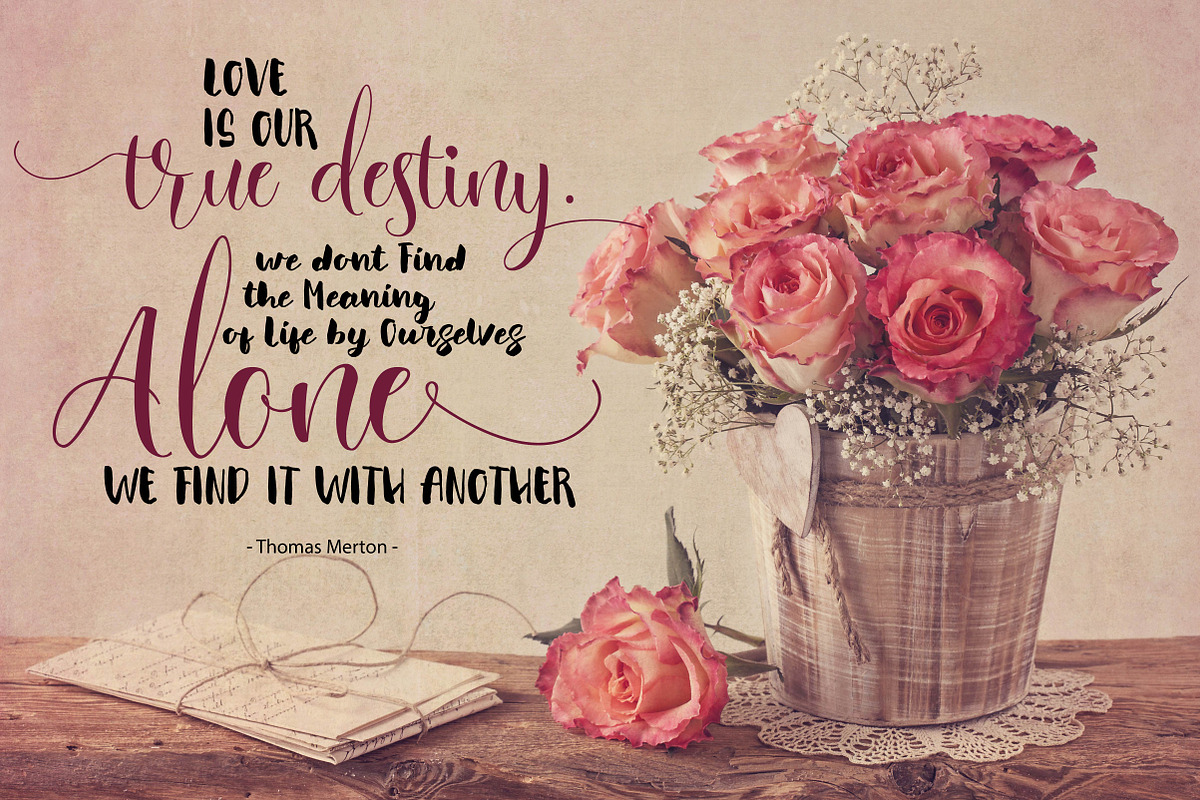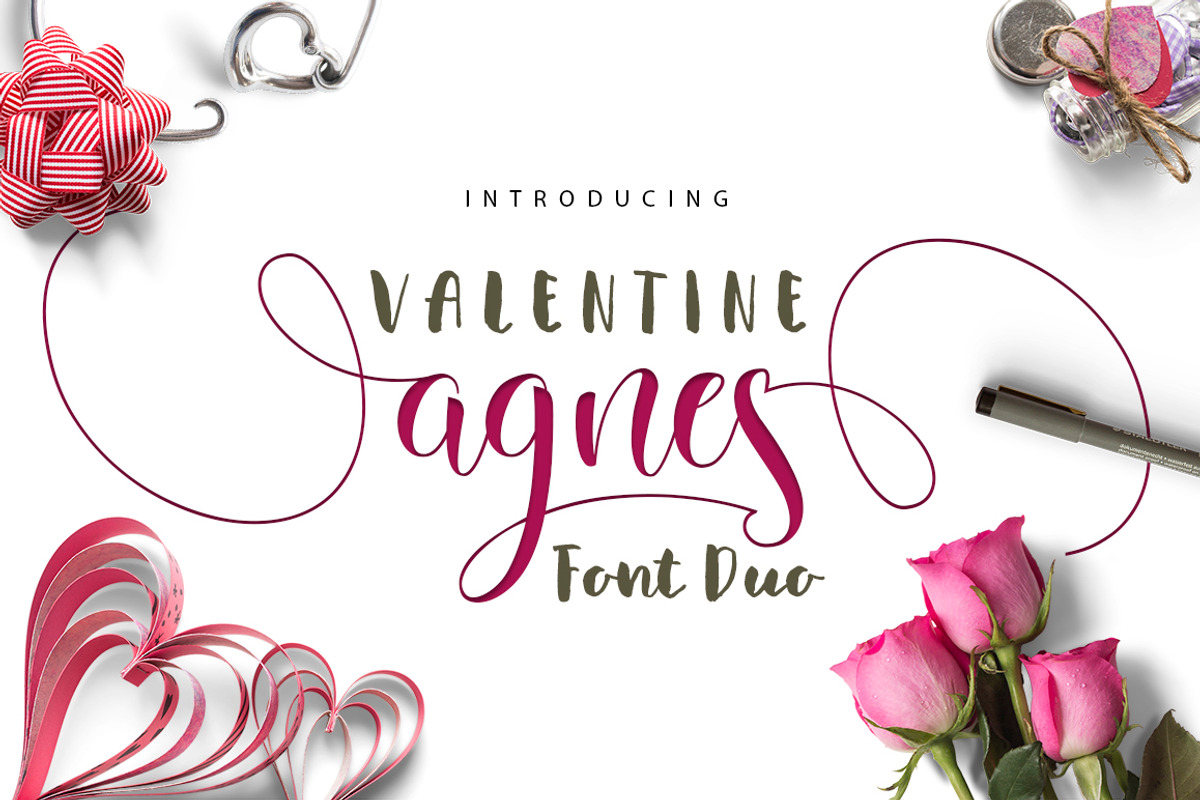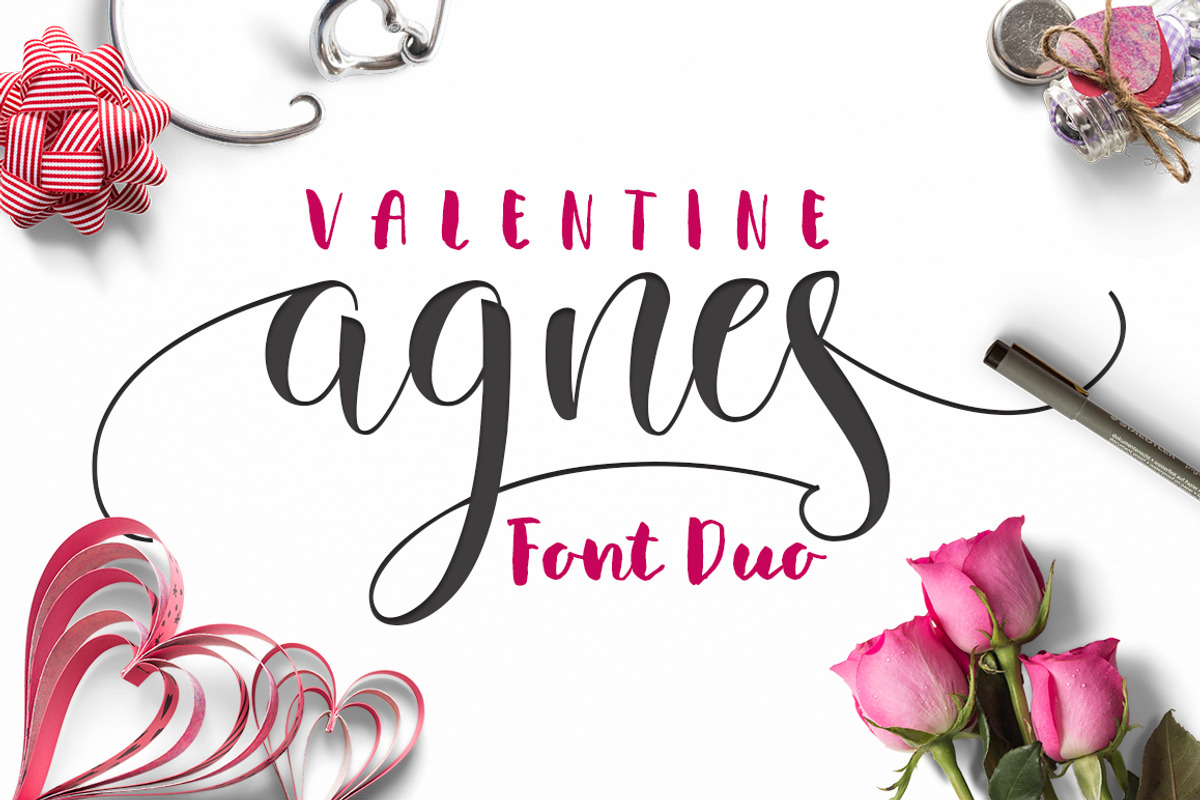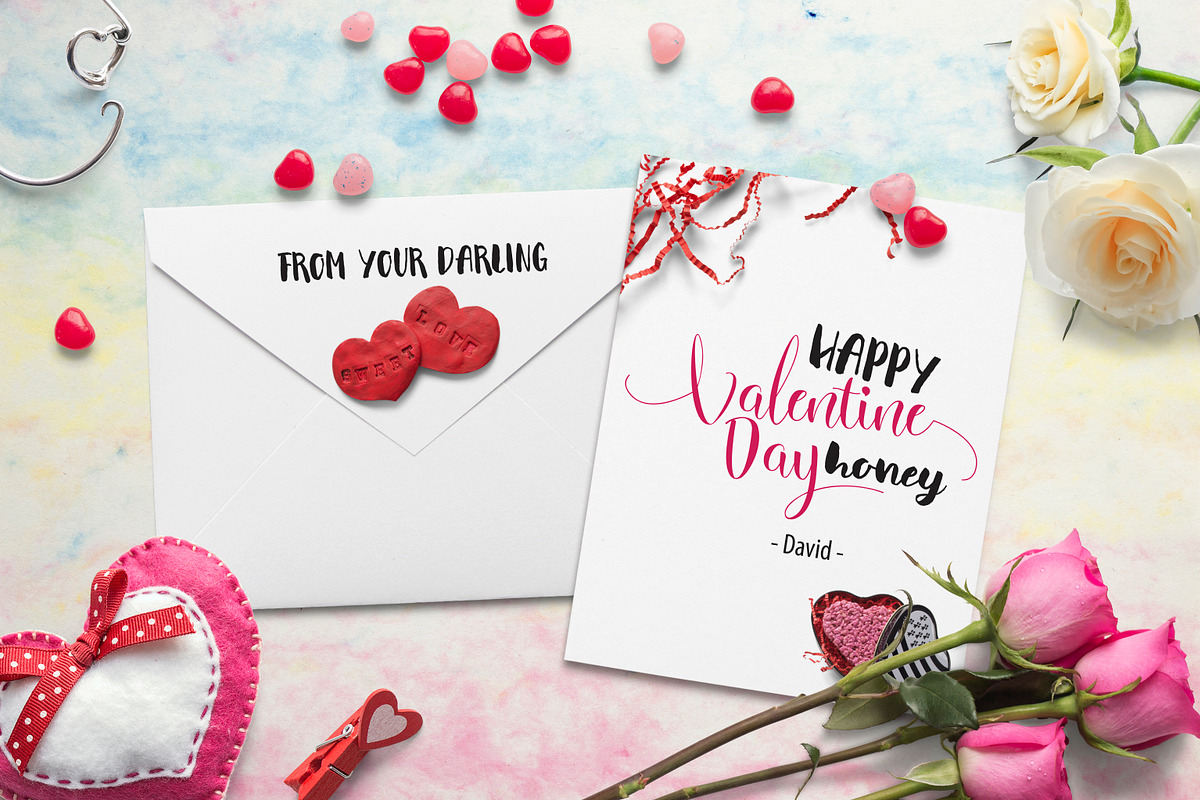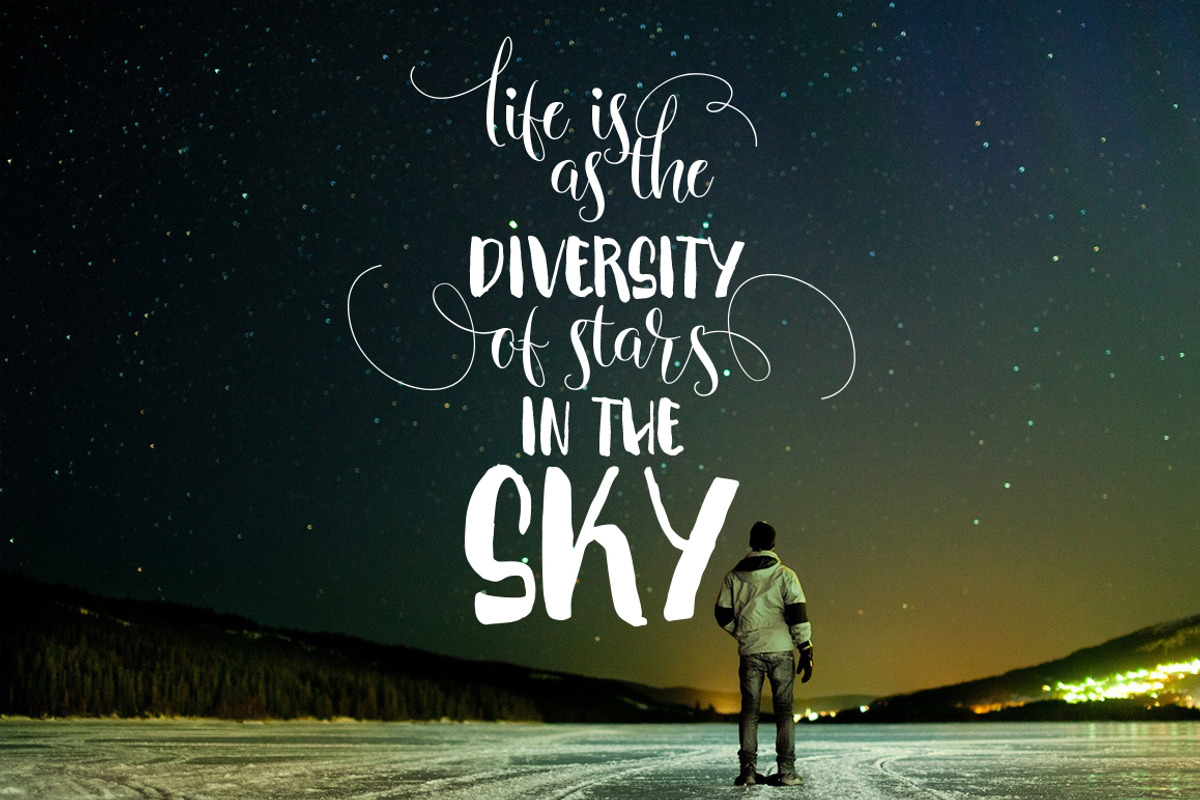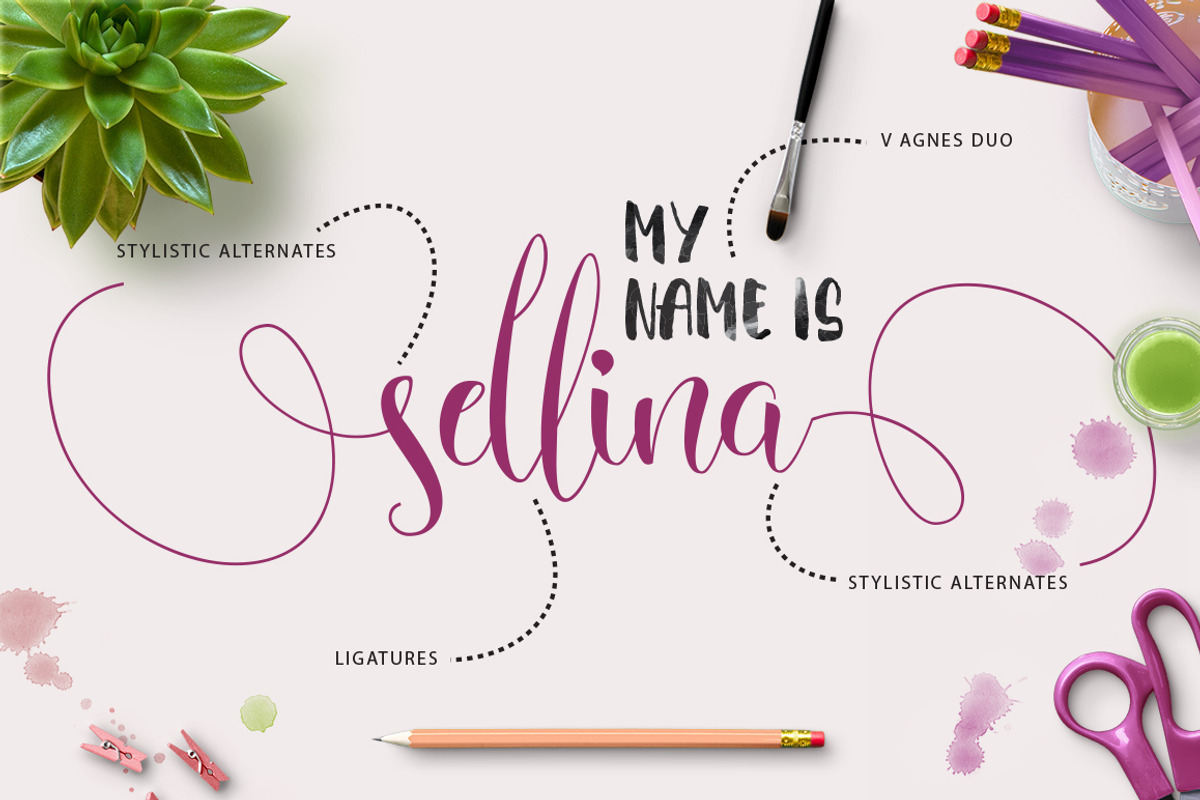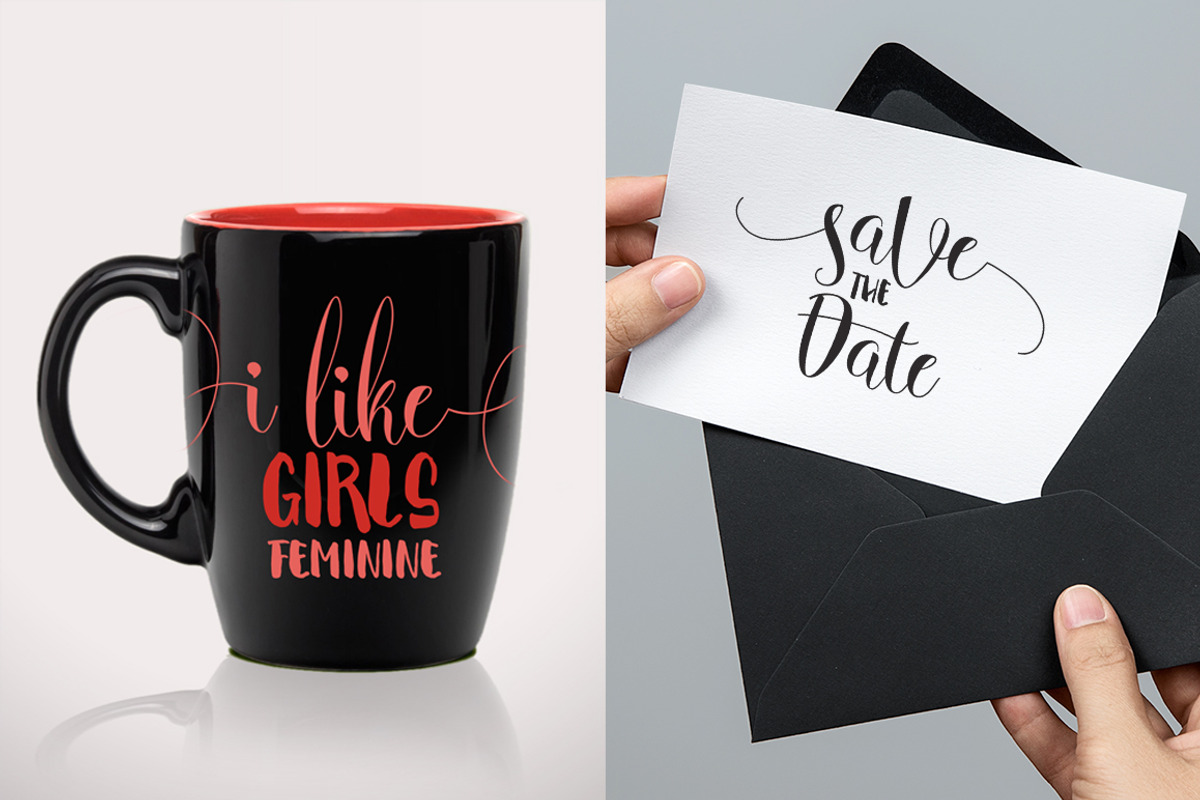
Valentine Agnes FONT DUO
Valentine Agnes FONT DUO by Olexstudio is a font selected for branding, posters, packaging, typography.
- Valentine Agnes comes with a complete set of standard characters, Punctuation, international glyphs, (but for fonts v agnes duo only upperca
Why Valentine Agnes FONT DUO is worth a look
Valentine Agnes FONT DUO by Olexstudio fits naturally into Branding, posters, packaging, typography.